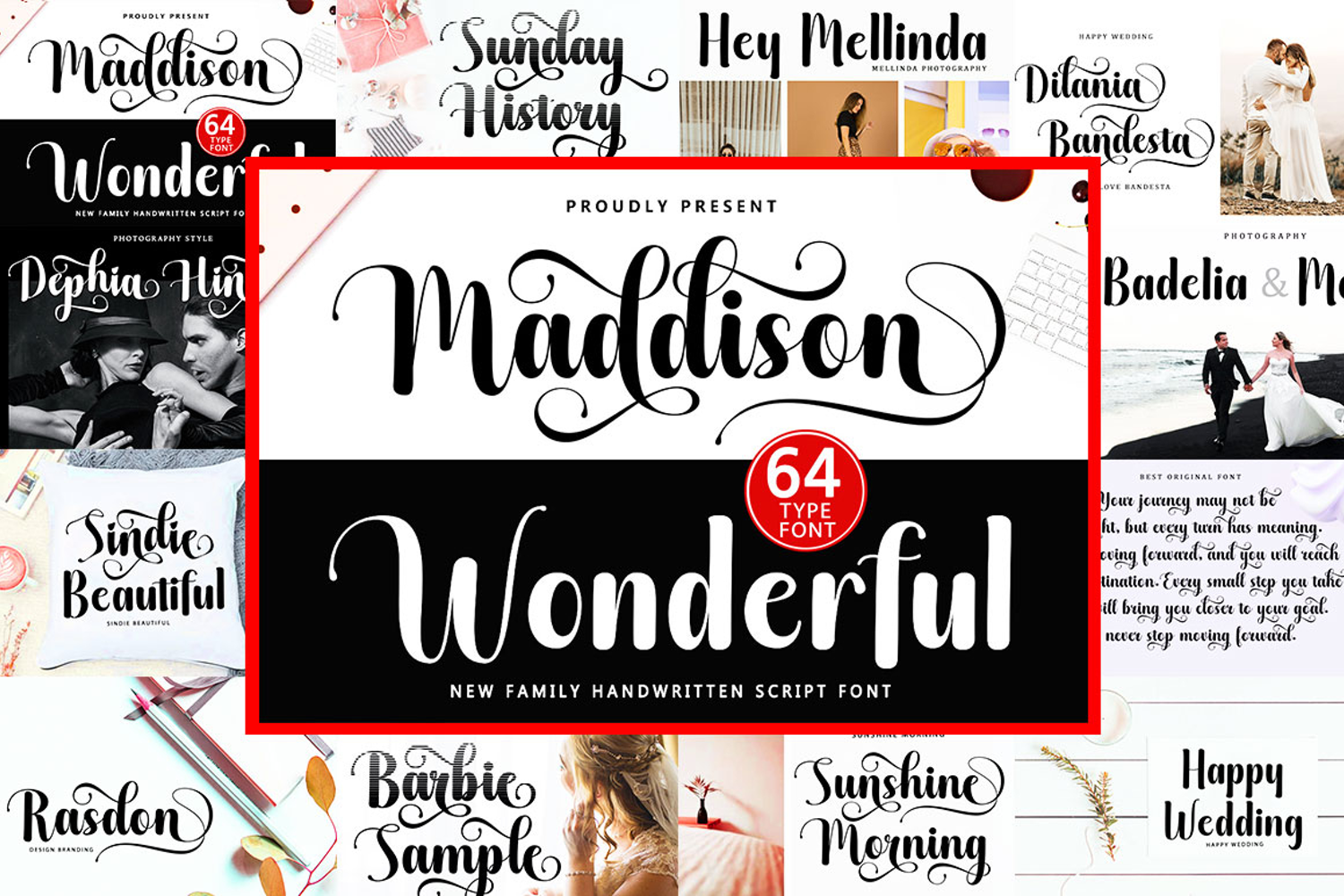
Maddison Wonderful - Family Font In 64 Type
Maddison Wonderful Family Font is a modern script font that features a classic and elegant touch.
Maddison Wonderful because it is sleek, clean, feminine, sensual, glamorous, simple, and very readable, thanks to its many beautiful letter connections. I also offer a number of decent style alternatives for some of the letters. The classic style is perfect for applying in various formal forms such as invitations, labels, restaurant menus, logos, fashion, makeup, stationery, novels, magazines, books, greeting/wedding cards, packaging, labels, or all kinds of advertising purposes. . . . . . .
• Has 64 New Type Fonts.